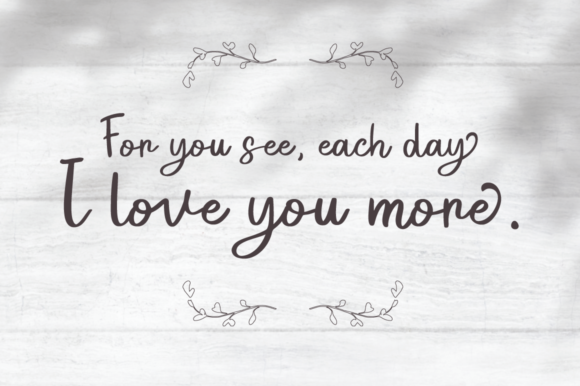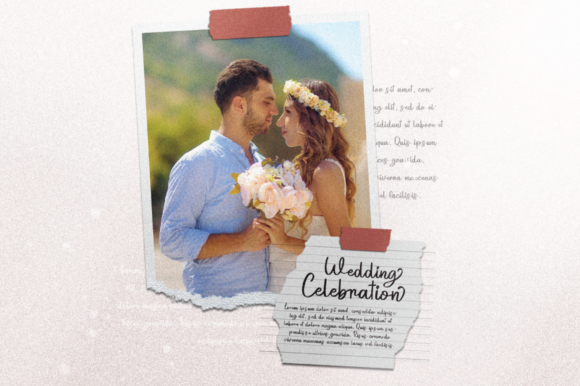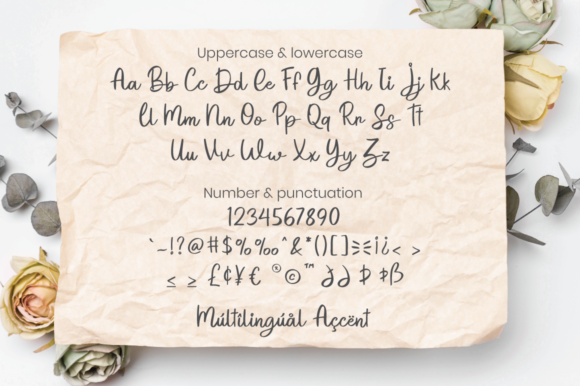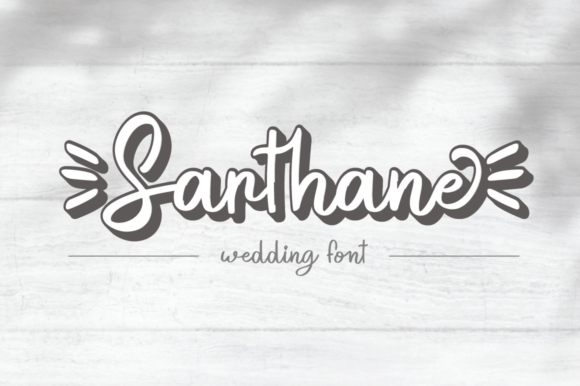
Introduction to Sarthane Font
Sarthane is a lovely and delicate script font that exudes elegance and class.
Key Features of Sarthane Font
Why Choose Sarthane Font?